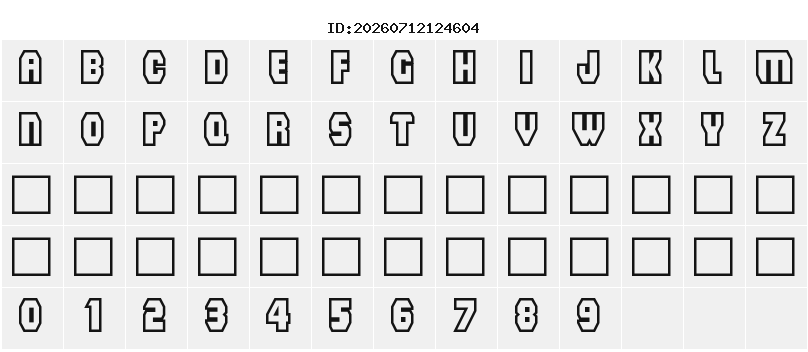
• Font Name: Mad Groove Clean
• Designer: imagex
About Mad Groove Clean.ttf
Mad Groove Clean.ttf is a modern, elegant sans-serif font designed for ultimate readability and visual harmony. Perfect for branding, headlines, web design, and print materials.